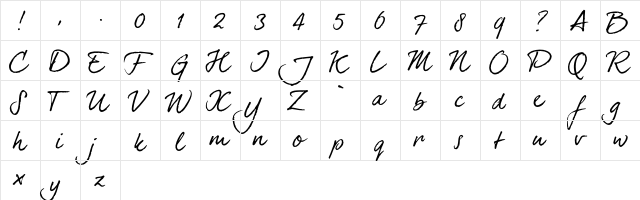
dearJoe 7 TRIAL Regular Font Preview
dearJoe 7 TRIAL Regular
dearJoe 7 TRIAL Regular Font Details
| Foundry | JJW van der Ham / JOEBOB graphics |
| Designer | JJW van der Ham / JOEBOB graphics |
Design Context for dearJoe 7 TRIAL Typeface
dearJoe 7 TRIAL is a composed and adaptable typeface that performs quietly and consistently across a wide range of design contexts.